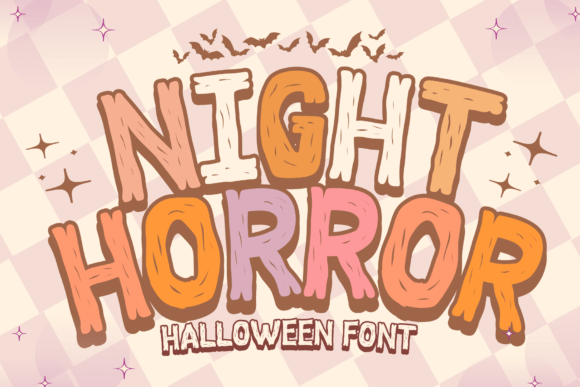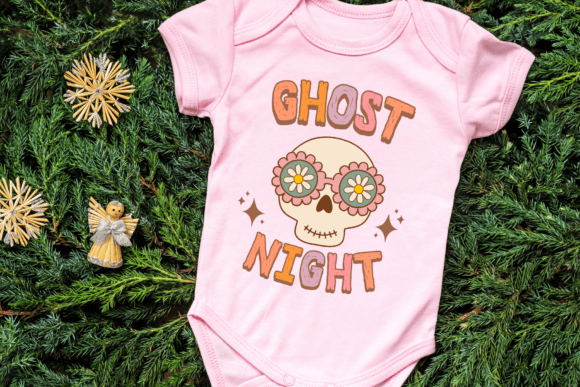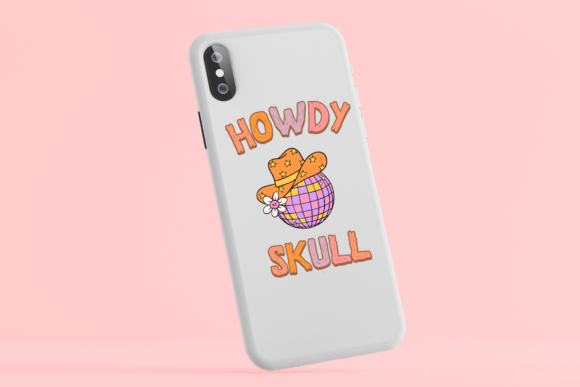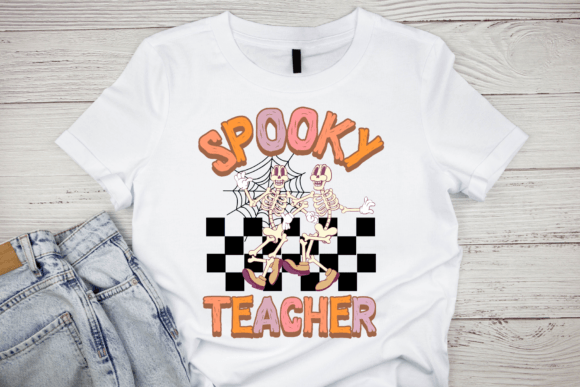
Night Horror Font
About the Night Horror Font
Introducing the Night Horror Font, a beautifully crafted typeface designed to elevate your creative projects. Night Horror is a cool Halloween display font. It embodies playfulness and authenticity and is the perfect choice for all your favorite projects such as blog posts, logos, branding, ads, invitations, greeting cards, planners, photo albums, decorations, and more. Add it to any of your designs, and enjoy the results!
Night Horror excels as a display font for headlines, posters, and branding applications where a bold, playful aesthetic is desired. Its strong character makes it ideal for Halloween-themed projects, comic book titles, or edgy apparel branding. However, its highly stylized forms make it unsuitable for body text or UI elements requiring high readability.
For optimal visual harmony, pair Night Horror with a clean sans-serif like Open Sans for body copy or a contrasting serif such as Playfair Display for a more traditional feel. A geometric sans-serif could also create a striking juxtaposition, depending on the overall design goal.
The font’s core personality is playful yet bold, conveying a sense of fun with a touch of darkness. This makes it perfect for projects that need a strong visual impact without being overly serious or sophisticated.
Night Horror Font Usage Examples
Night Horror Font Example